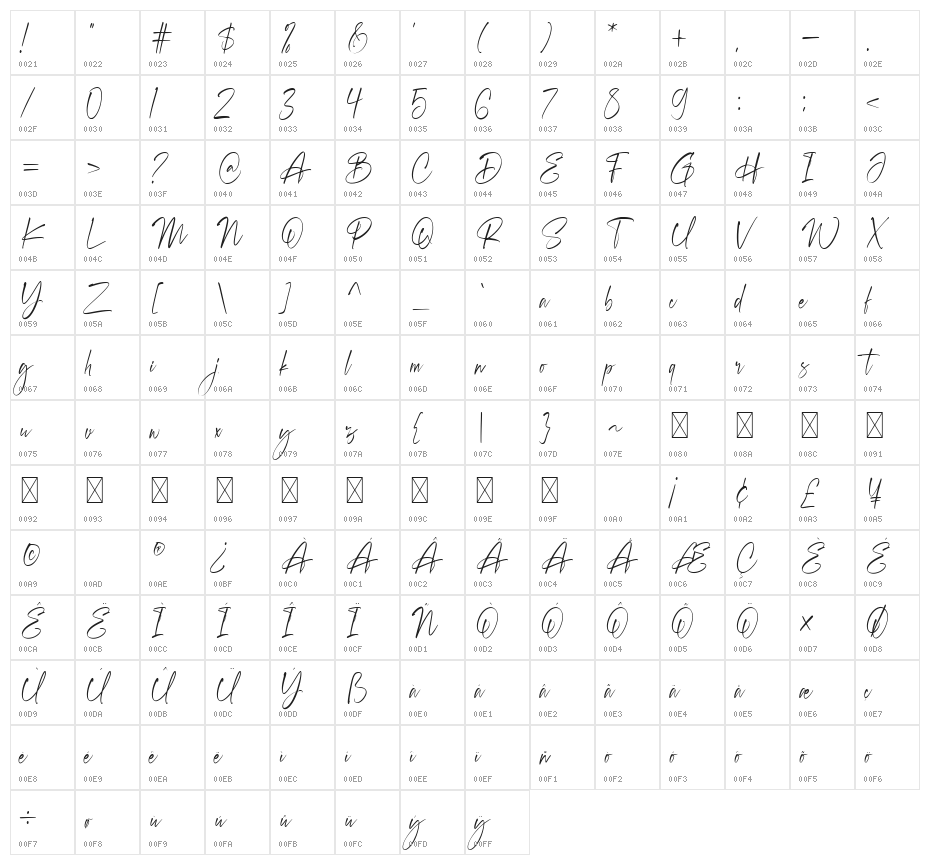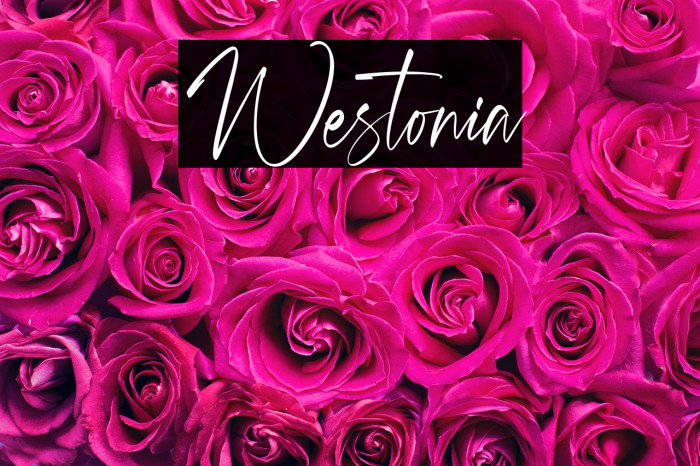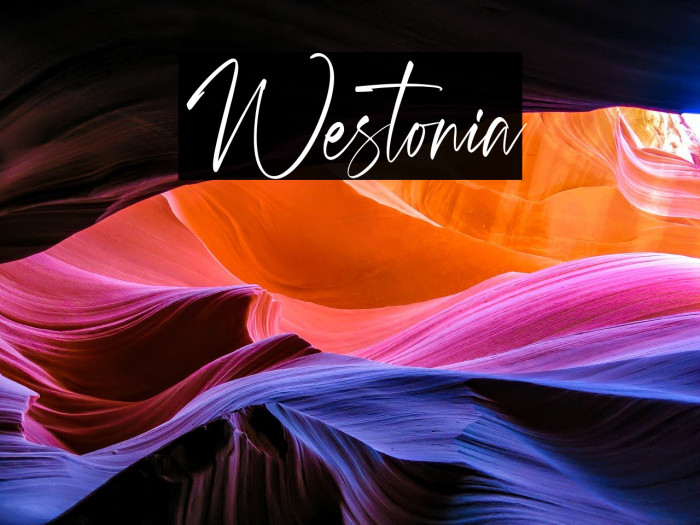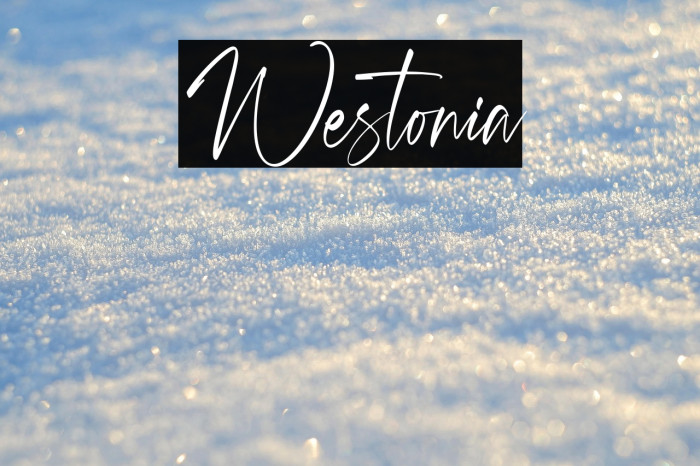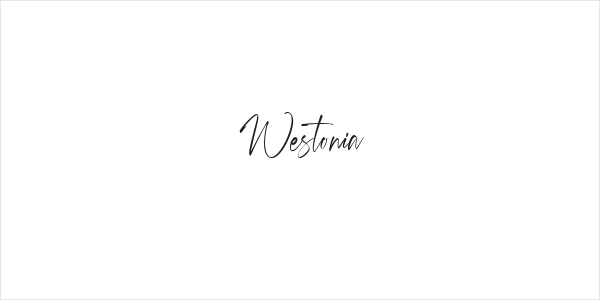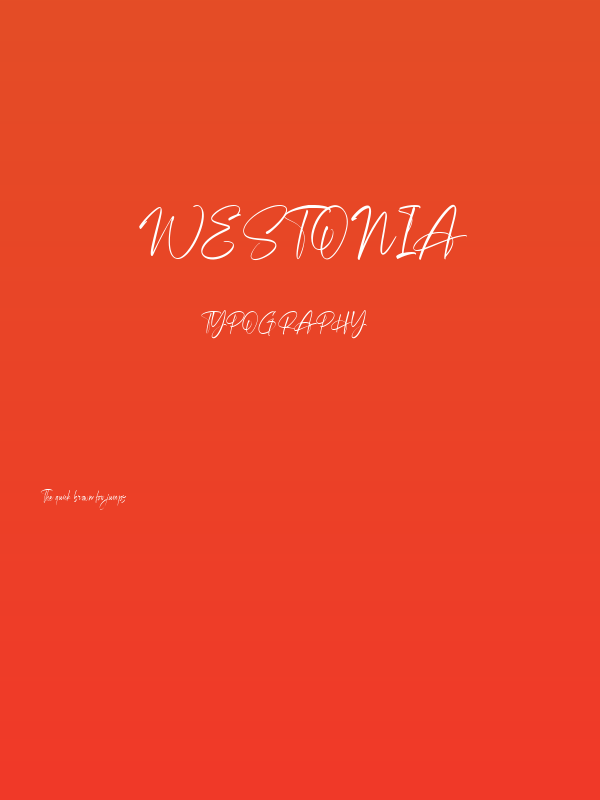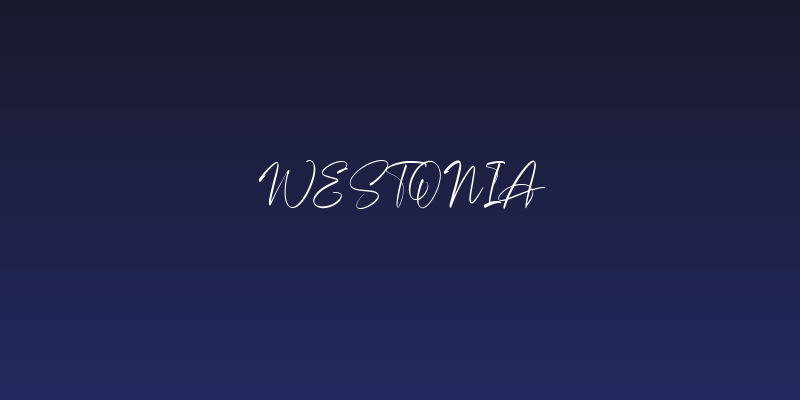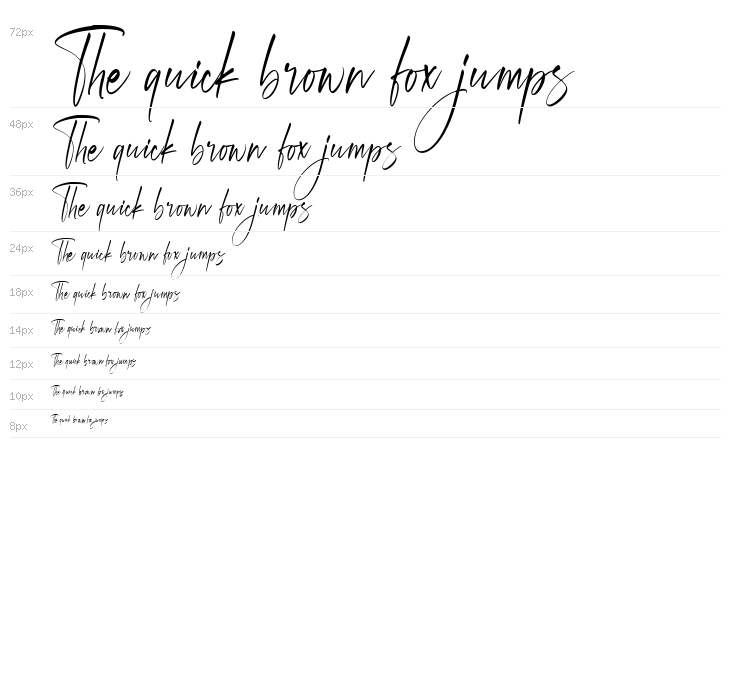
Westonia Font
Westonia Description
This font features an elegant and flowing script style, characterized by its smooth, cursive strokes and a handwritten appearance. The uppercase letters are bold and sweeping, with a slight slant that adds a dynamic feel. The lowercase letters are more delicate, with intricate loops and connections that enhance the font's graceful aesthetic. Numbers and special characters maintain the same fluidity, ensuring a cohesive look across all text. This font exudes a sense of sophistication and charm, making it ideal for projects that require a personal touch.
| Overall Style | Elegant, Handwritten |